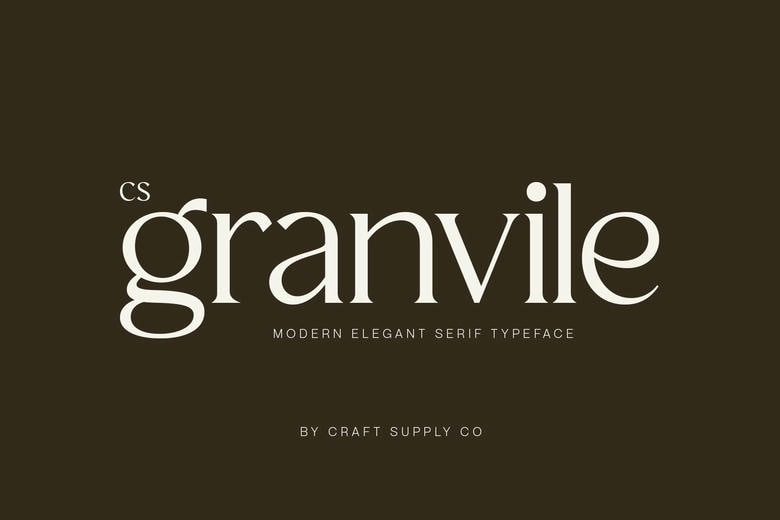
CS Granvile Font
CS Granvile Font– Classic Elegance with Refined Sophistication Timeless Serif with a luxurious character and in an elegant manner. It is a classy serif font that is characterized by superior curves and classic appearance.
All letterforms are designed with accuracy and elegance and bring out a sense of sophistication and confidence. This font was created to enhance visual storytelling, and it is the ultimate combination of the traditional beauty and the modern sophistication.
CS Granvile Serif Font